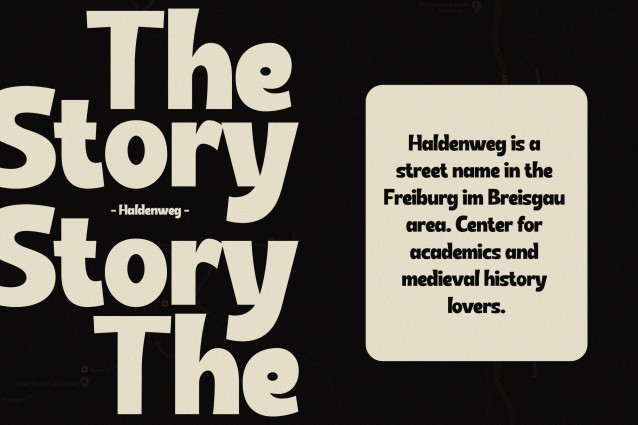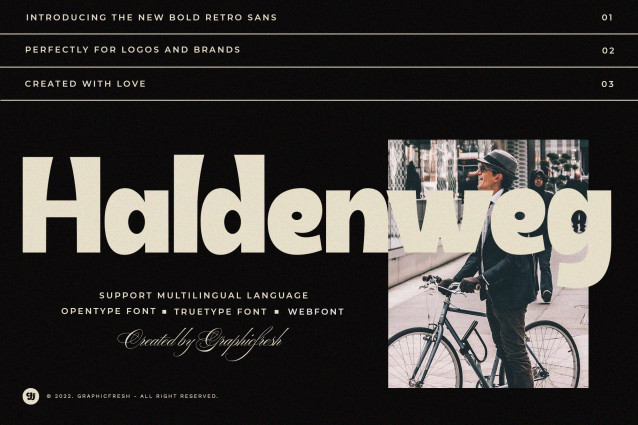
Haldenweg Font
Haldenweg font, a new retro font. An adaptation of life in the design industry in the 80s and 90s. We created this font so you can reminisce in vintage style. This font looks vintage, but still has a modern and elegant impression.